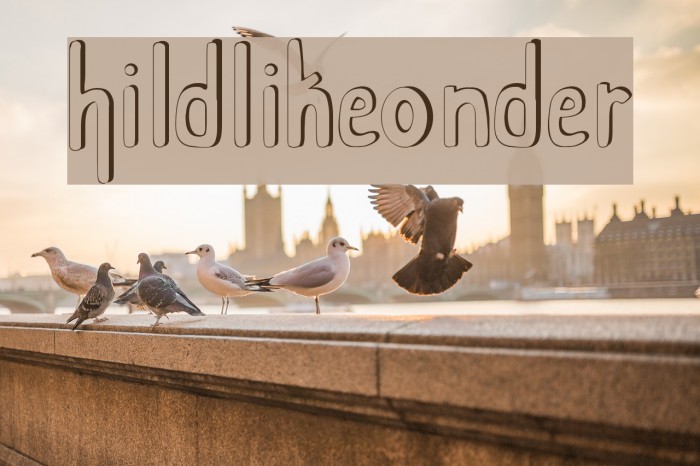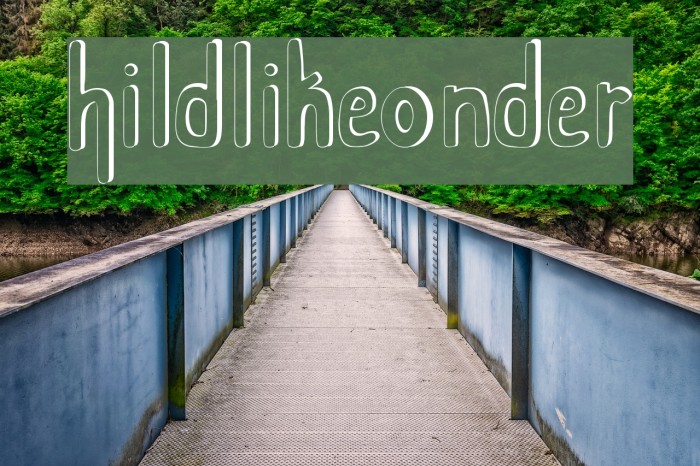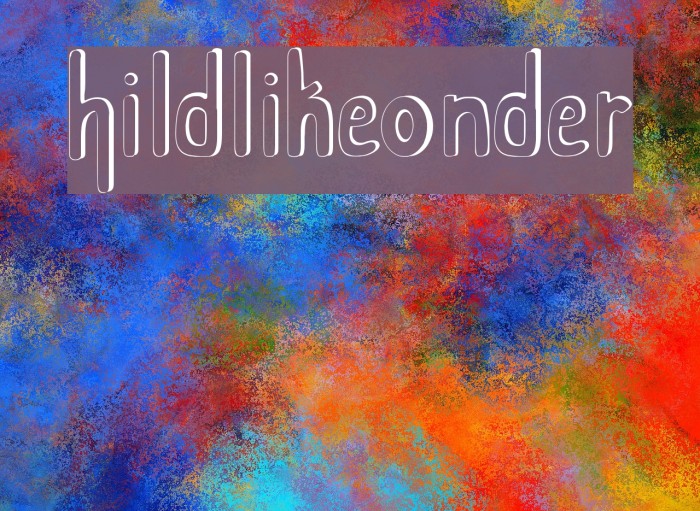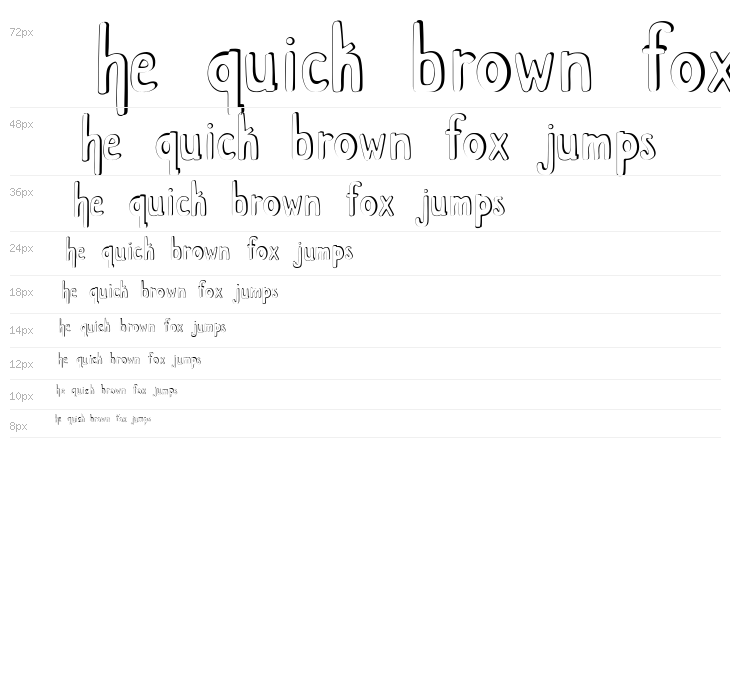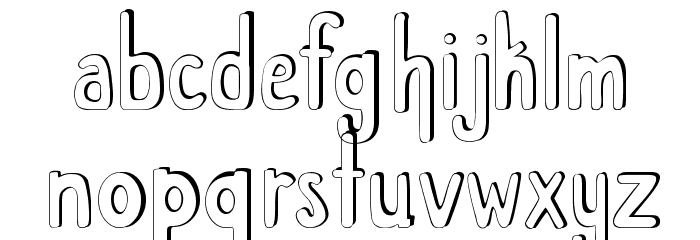
Childlike Wonder Font
Childlike Wonder Description
This playful and whimsical font features a charming outline style that evokes a sense of childlike wonder. The letters are rounded and soft, with a consistent stroke width that gives them a friendly and approachable appearance. The font maintains a uniform height across all characters, creating a harmonious and balanced look. Its simplicity and clarity make it easy to read, while the unique outline adds a touch of creativity and fun. This font is perfect for projects that aim to capture a youthful and imaginative spirit, making it ideal for children's books, playful branding, or educational materials.
| Use Case | Headlines, Logos, Children's materials |
| Proposed Projects | Ideal for children's books, playful branding, educational materials, and creative projects. |